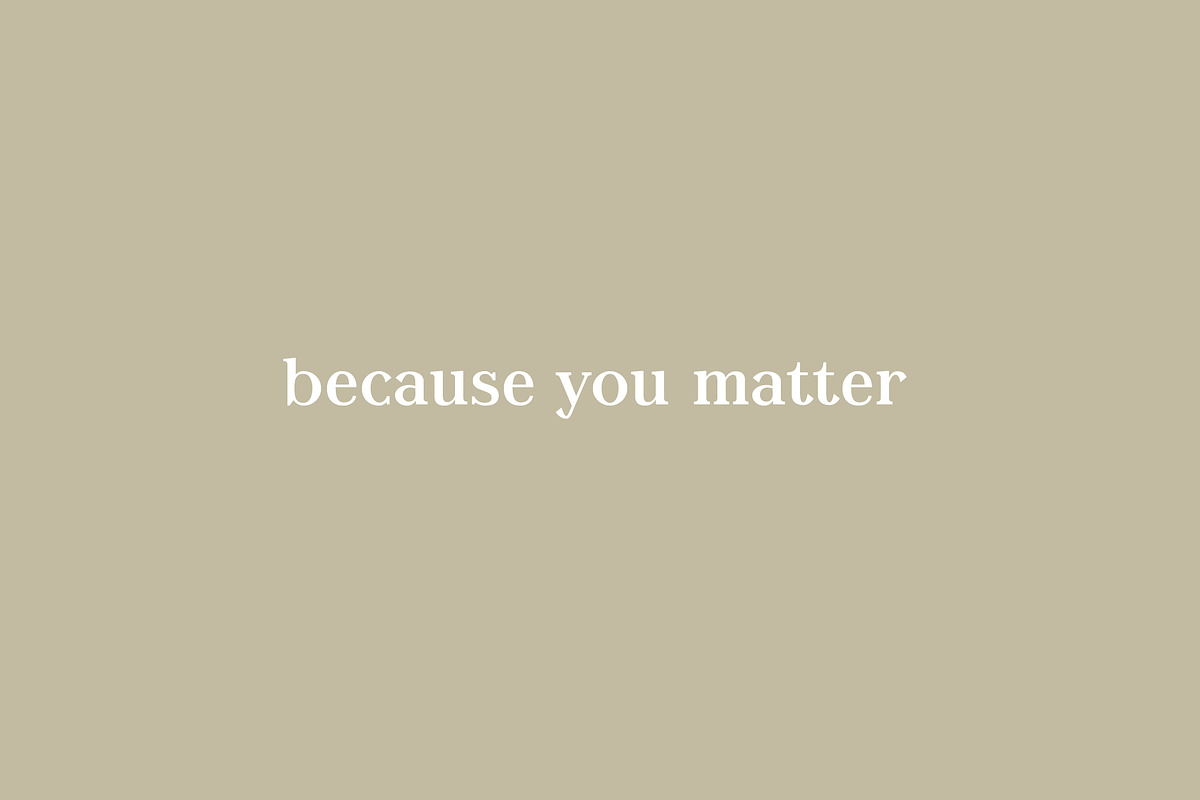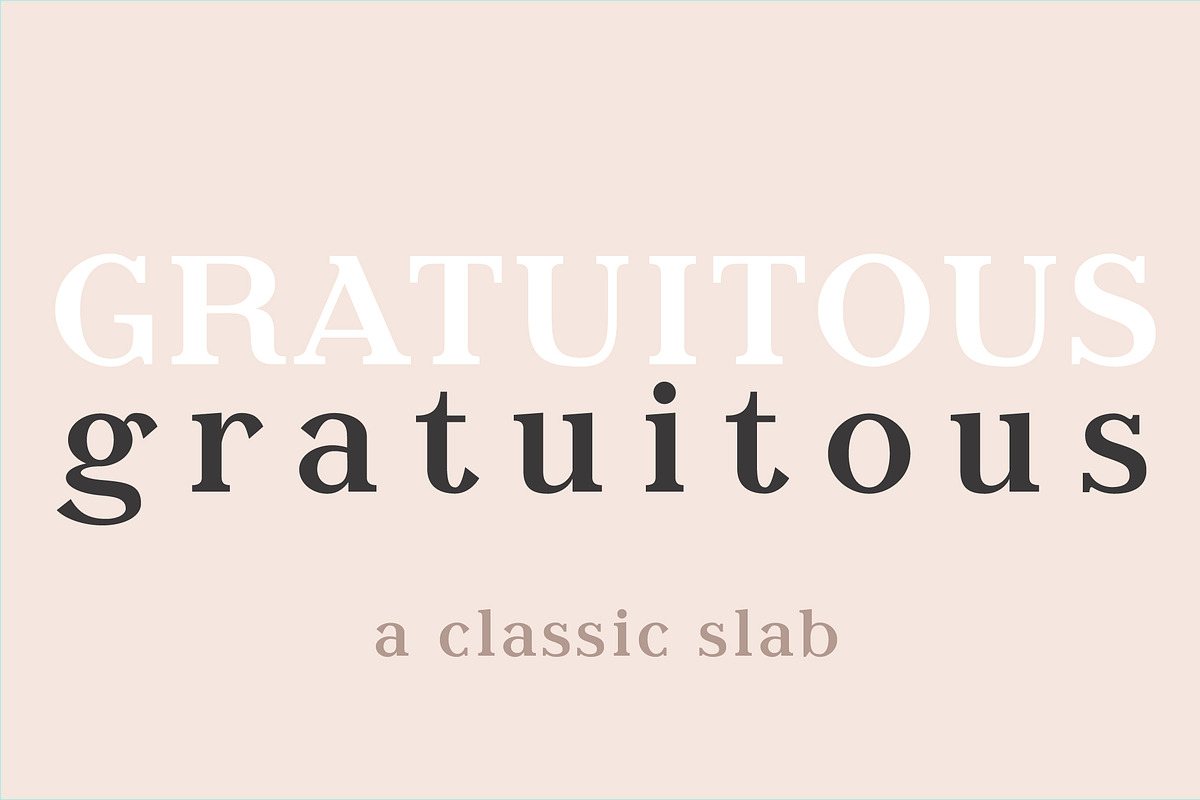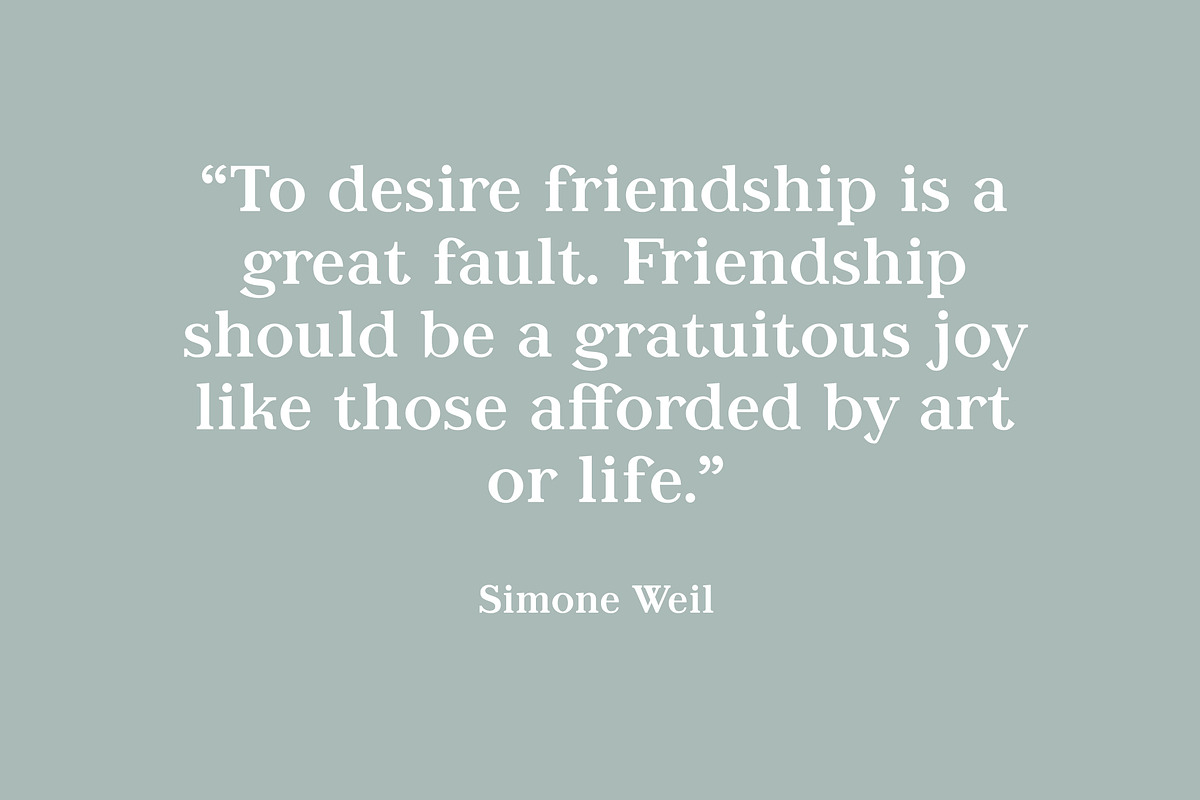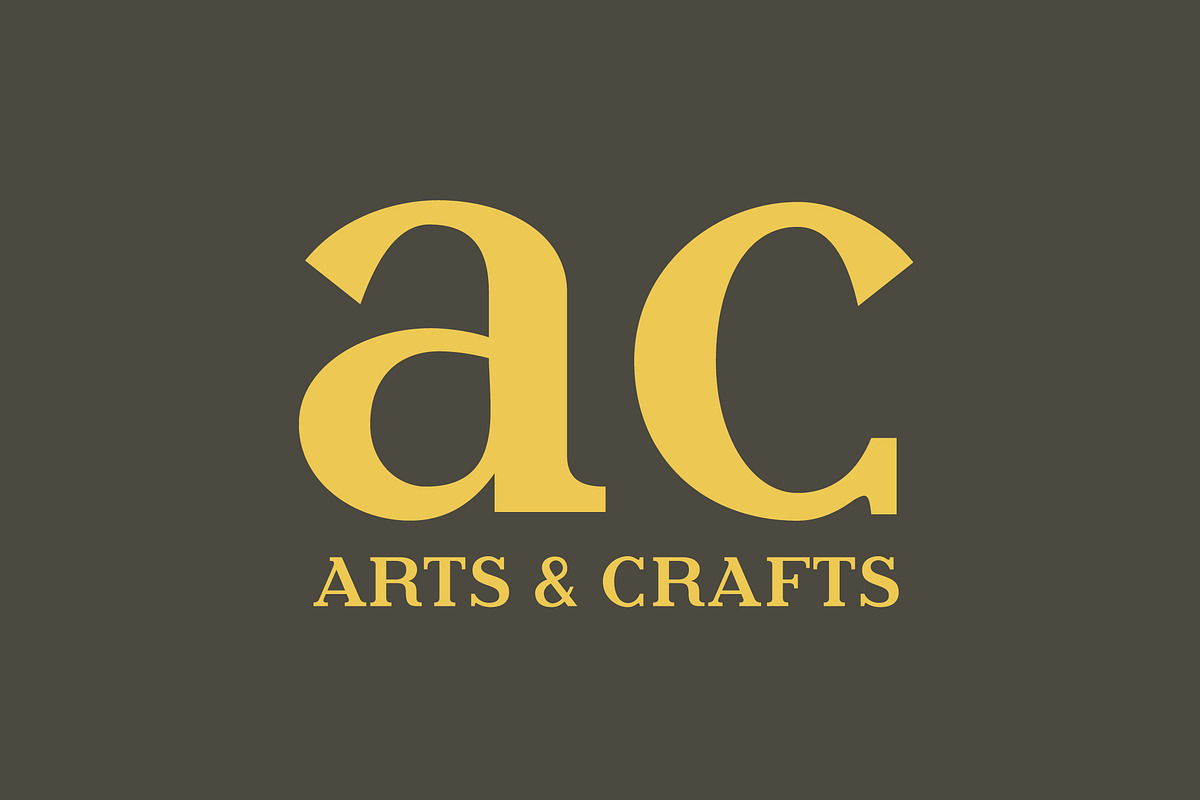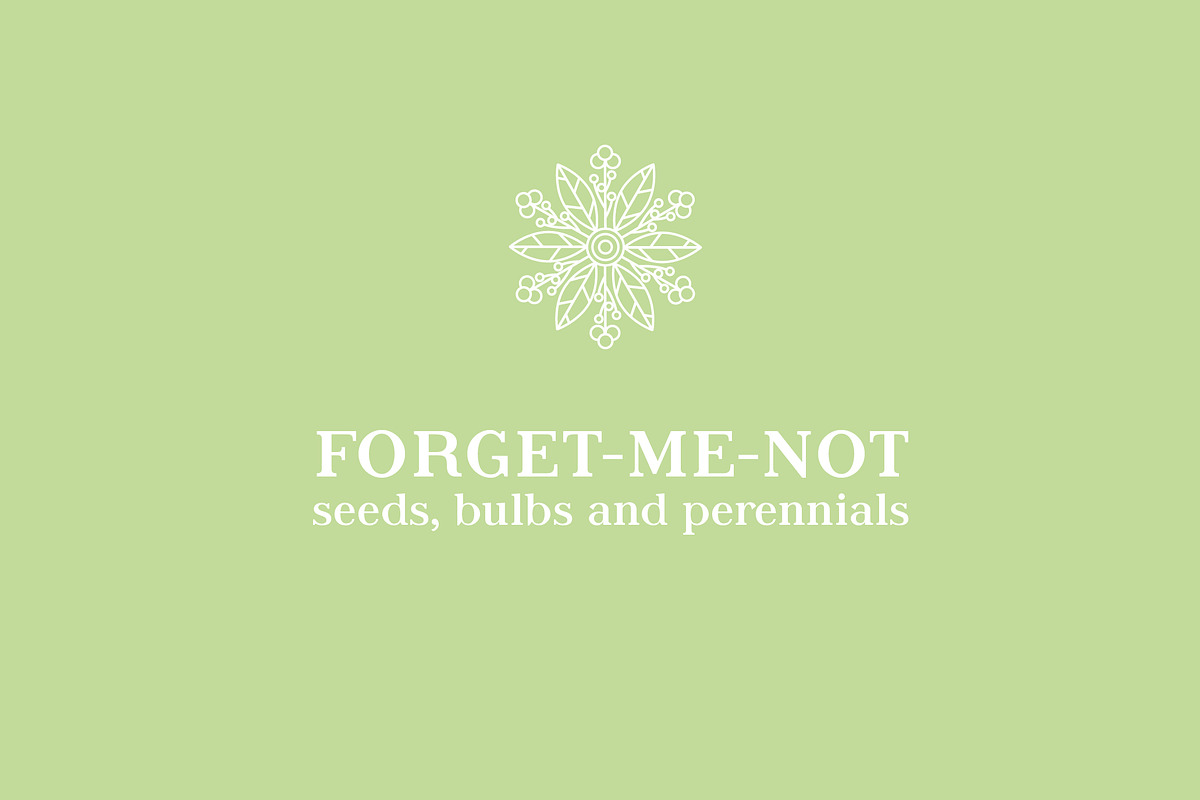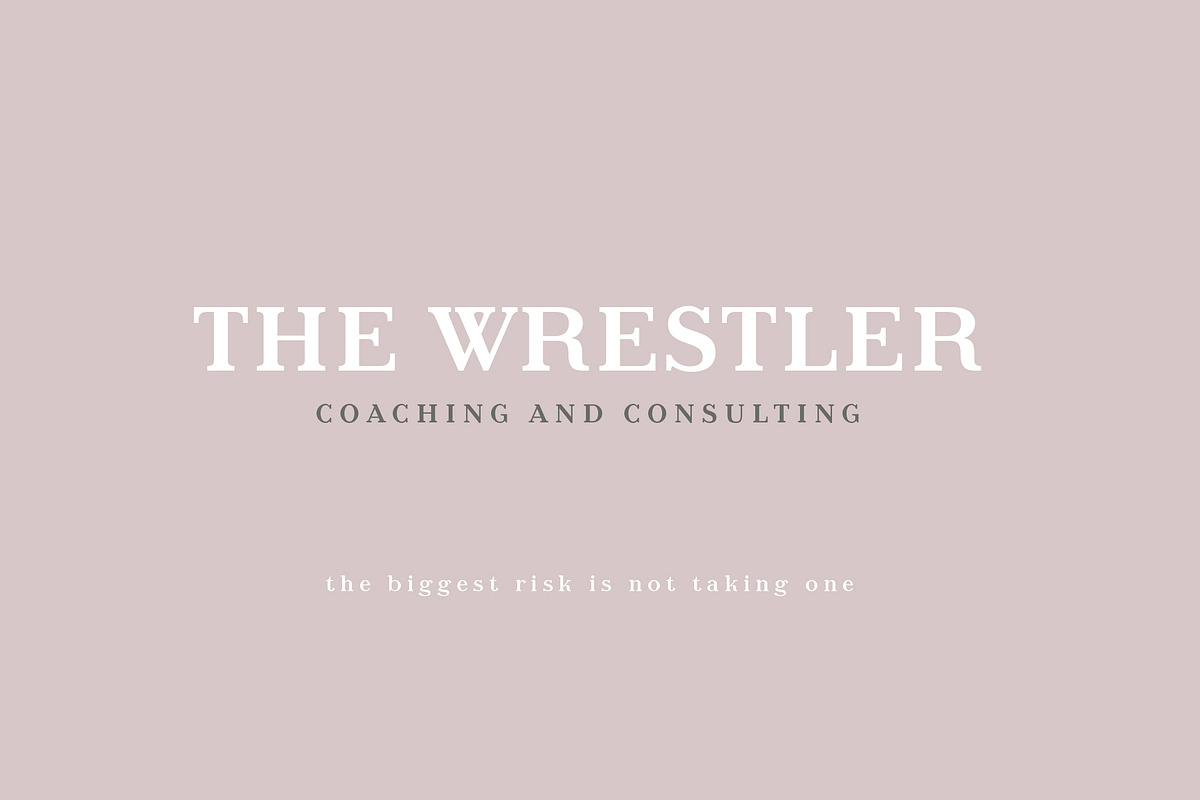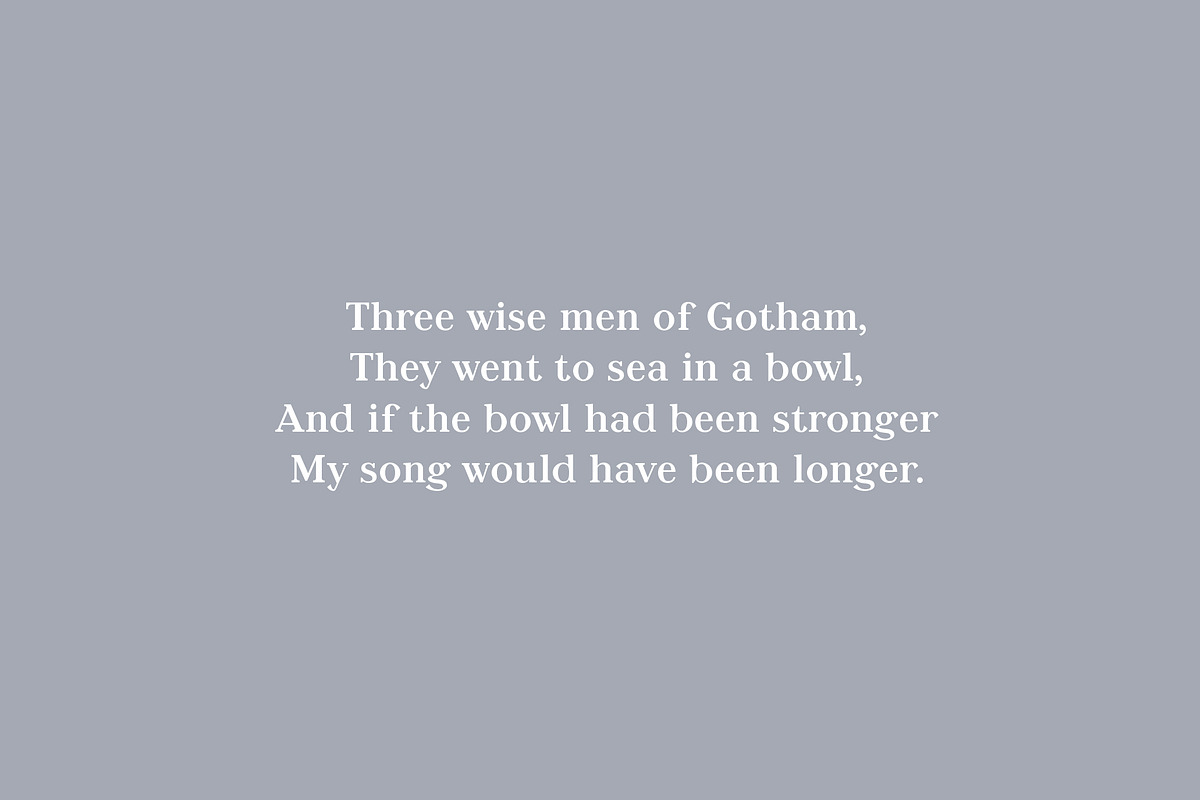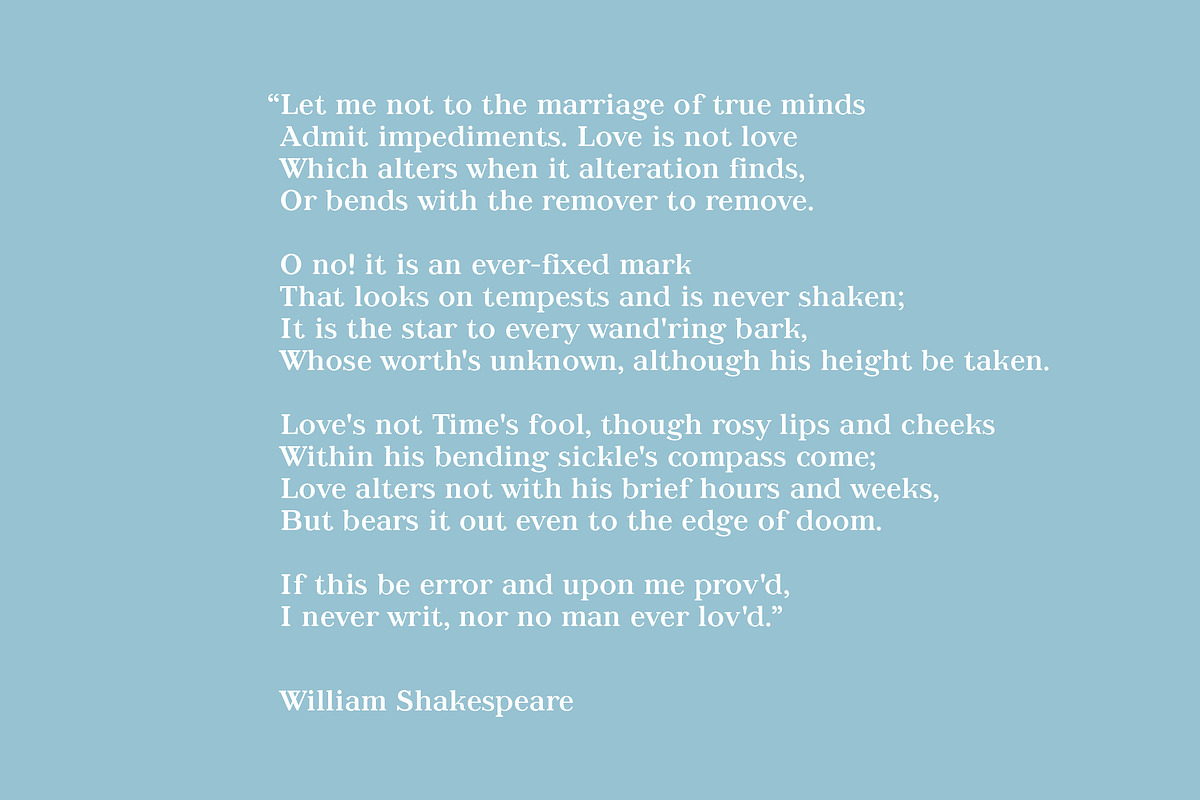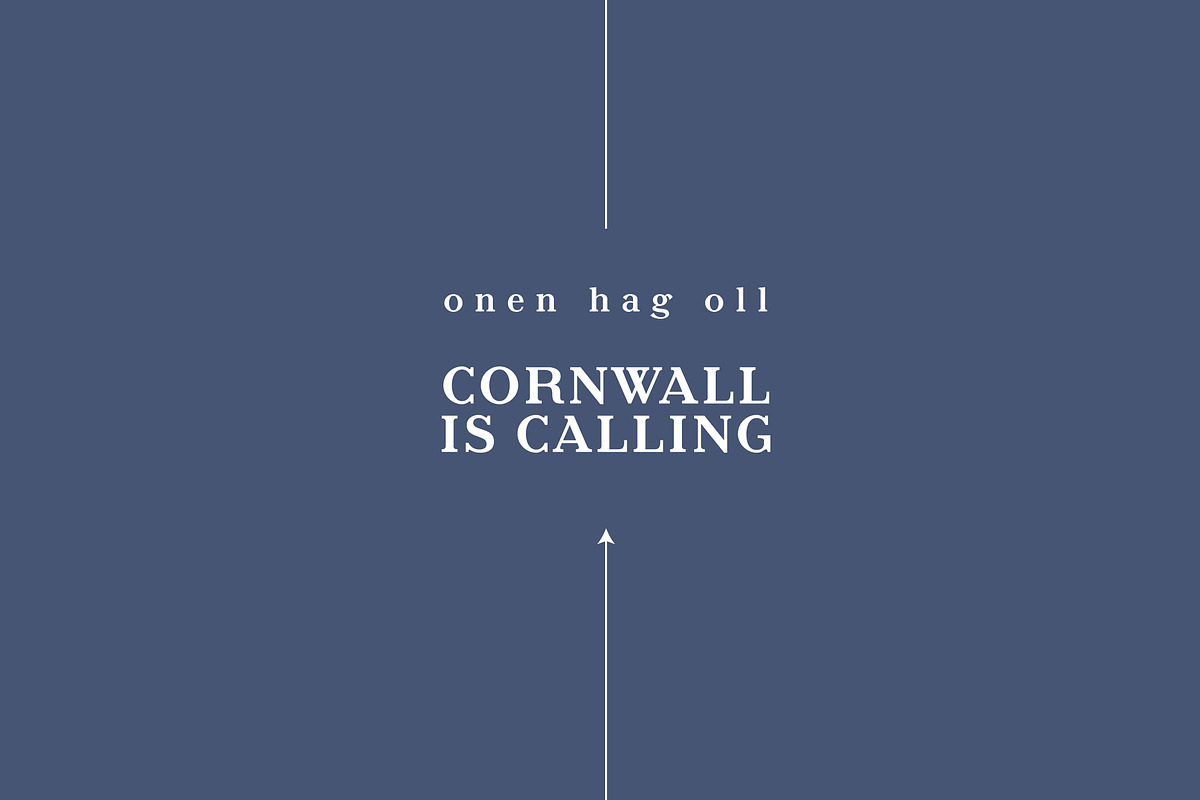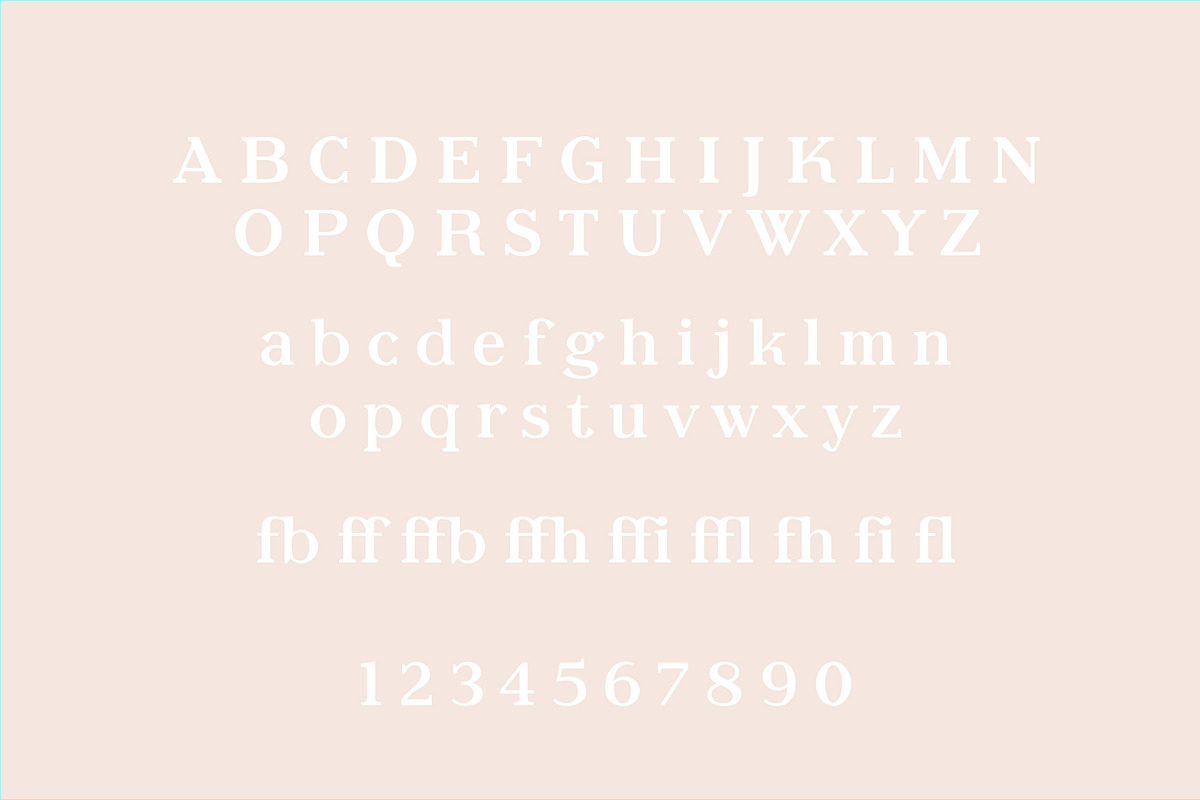
Gratuitous - A Classic Slab Serif
Gratuitous is an elegant slab serif typeface with a bit of warm calligraphic feel in its lowercase curves and flared end strokes.
The typeface would be a proper choice for headlines, branding, wedding stationery and quote art prints.
- standard uppercase and lowercase character set;
- diacritics for Western, Central and Southeastern European languages;
- ligatures ff, fi, fl, ffl, ffi, fb, ffb, fh, ffh;
- numbers, punctuation and special characters;